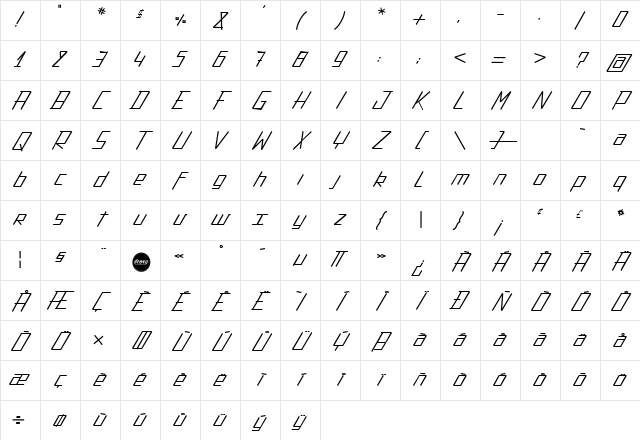
Action Protocol Italic
Foundry: dcoxy Medina Gregory
Designer: dcoxy Medina Gregory
Design Context for Action Protocol
Action Protocol is a composed and adaptable typeface that performs quietly and consistently across a wide range of design contexts. The slanted form adds forward momentum and visual energy.
Pro Tip: Use Action Protocol for emphasis, pull quotes, and subheadings where its slanted energy can add rhythm to the layout.